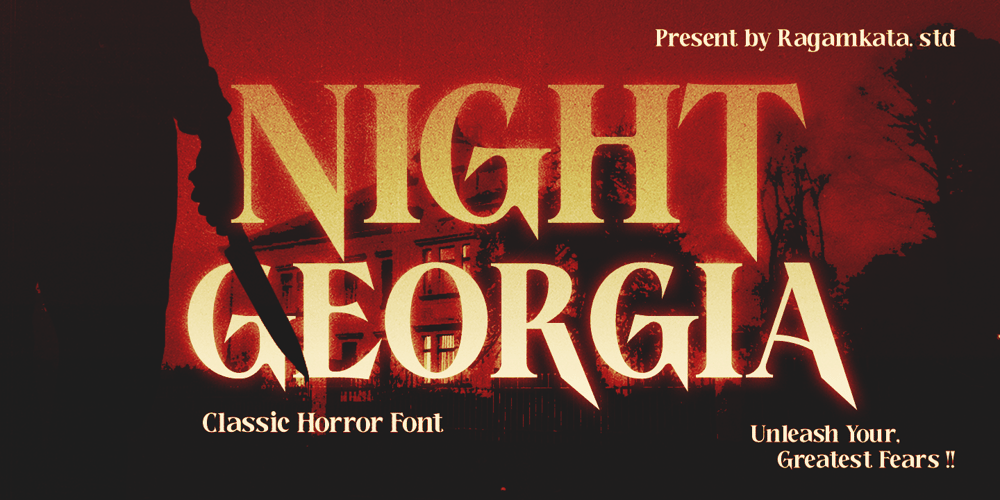
Night Georgia Font Family was designed by Yogiswhara Dio Prakoso Riadi and published by RagamKata. Night Georgia contains 2 styles and family package options. Introducing Night Georgia, a spine-chilling display font that blends classic horror with vintage elegance. Inspired by 70s horror movie posters, this font features sharp, spiky serifs and an elongated condensed design, perfect for evoking suspense and nostalgia.Night Georgia comes in two styles: Regular and Outline, offering versatility for your creative needs. Ideal for Halloween projects, movie titles, book covers, and posters, it brings the thrilling allure of classic horror to any design, making your work stand out with eerie charm and timeless style.What do you get?- Two styles: Regular and Outline- Uppercse & Lowercase- Alternates Characters (Bonus)- Multilingual support- Compatible with PC & Mac- Easy installation- Accessible in Adobe Illustrator, Adobe Photoshop, Microsoft Word, and Canva- PUA Encoded Characters- Fully accessible without additional design softwareFeel free to drop a message if you have any questions. Thanks!Ragamkata Studio